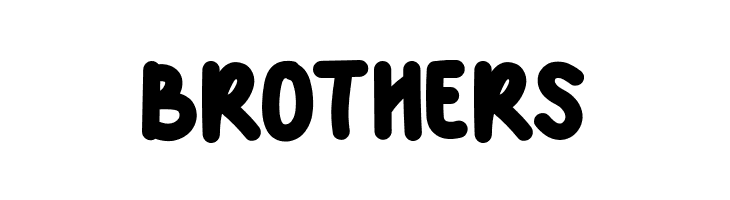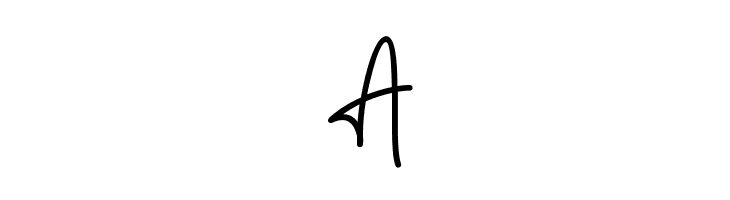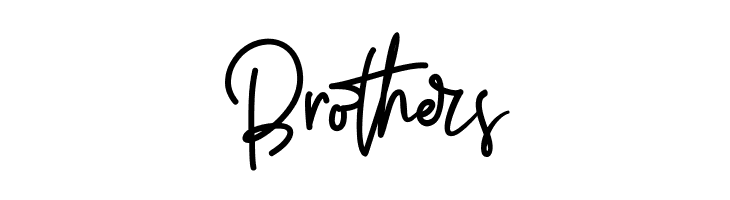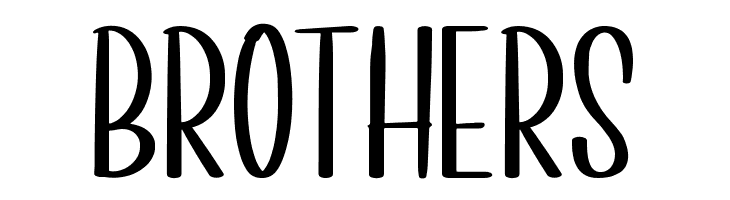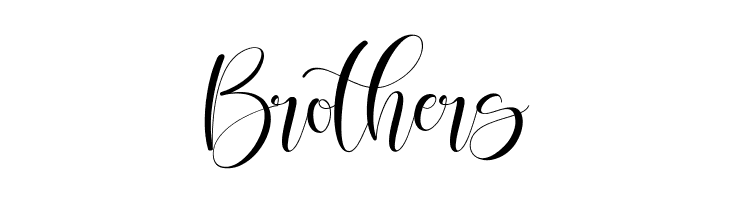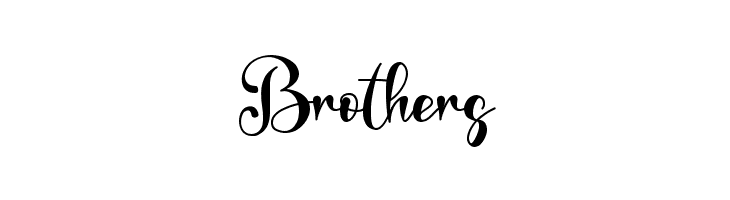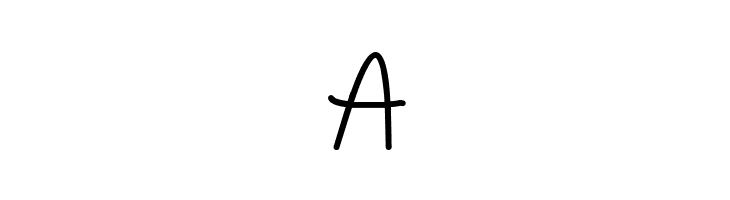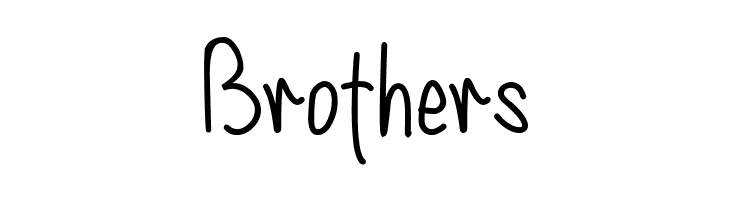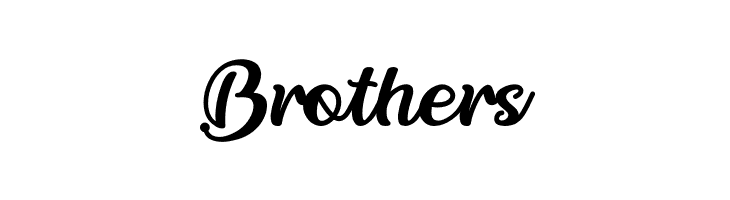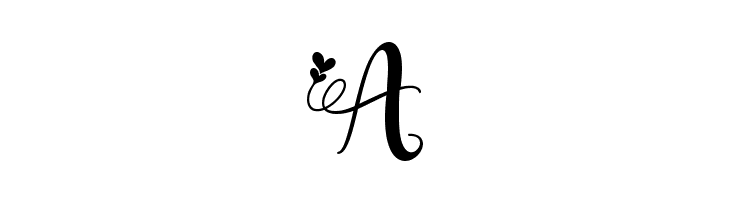
An elegant, flowing script font with sweeping curves and delicate strokes.
An elegant, flowing script font with ornate uppercase and fluid lowercase letters.
An ornate and decorative font with intricate swirls and embellishments.
An ornate, decorative font with intricate hollow designs and vintage flair.
A playful handwritten font with smooth, flowing lines and a casual style.
A dynamic, expressive handwritten font with sharp, elongated strokes.
An elegant script font with intricate loops and swirls, perfect for artistic projects.
A hand-drawn, expressive font with a sketch-like, graffiti-inspired style.
A playful, hand-drawn font with bold strokes and a whimsical style.
A dynamic handwritten font with fluid strokes and playful elegance.
A bold, geometric font with strong visual impact and modern appeal.
A bold, playful font with rounded edges and a hand-drawn feel.
A playful, bold font with rounded, bubbly characters ideal for fun projects.
An elegant, flowing script font with varied stroke thickness and interconnected letters.
A bold, flowing script font with elegant, cursive letterforms.
A sophisticated script font with flowing, decorative curves.
An elegant, flowing script font with intricate loops and a dynamic italic style.
An elegant, flowing script font with artistic flourishes and a playful yet sophisticated style.
An elegant and flowing script font with artistic loops and swirls.
A sophisticated script font with elegant loops and high contrast strokes.
An elegant and flowing script font with delicate, elongated letterforms.
An elegant script font with floral embellishments and flowing cursive style.
A playful, hand-drawn font with tall, narrow letters and a modern, whimsical style.
A decorative script font with elegant swirls and playful loops.
An elegant and flowing script font with ornate uppercase and smooth lowercase letters.
A playful and flowing script font with a handwritten style.
A pictorial font using biblical scene illustrations as glyphs.
A bold, dynamic font with expressive strokes and a playful, artistic style.
A bold, slab serif font with a strong, structured appearance.
A bold and playful font with rounded, thick characters and whimsical flair.
A whimsical and decorative font with thin, elegant strokes and a calligraphic flair.
An elegant, cursive font with intricate loops and swashes, perfect for artistic projects.
A playful, cloud-like font with bold outlines and whimsical shapes.